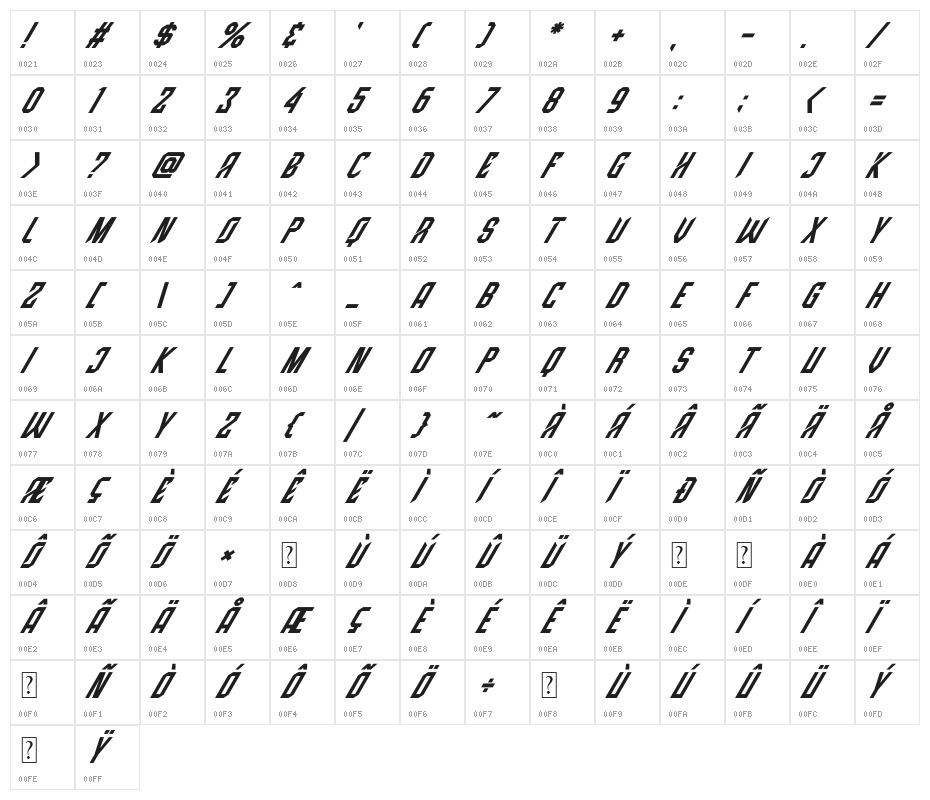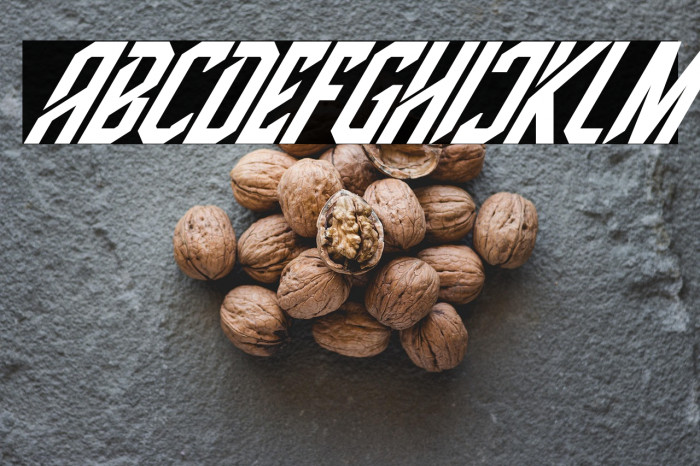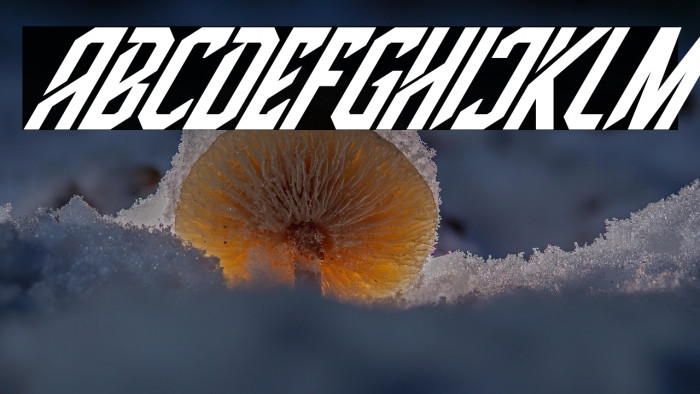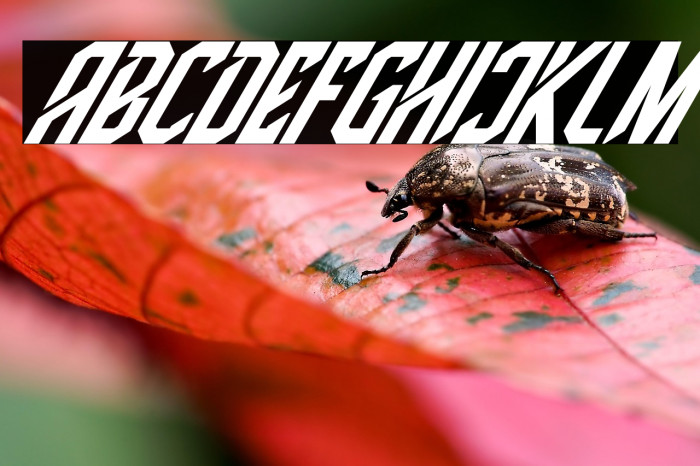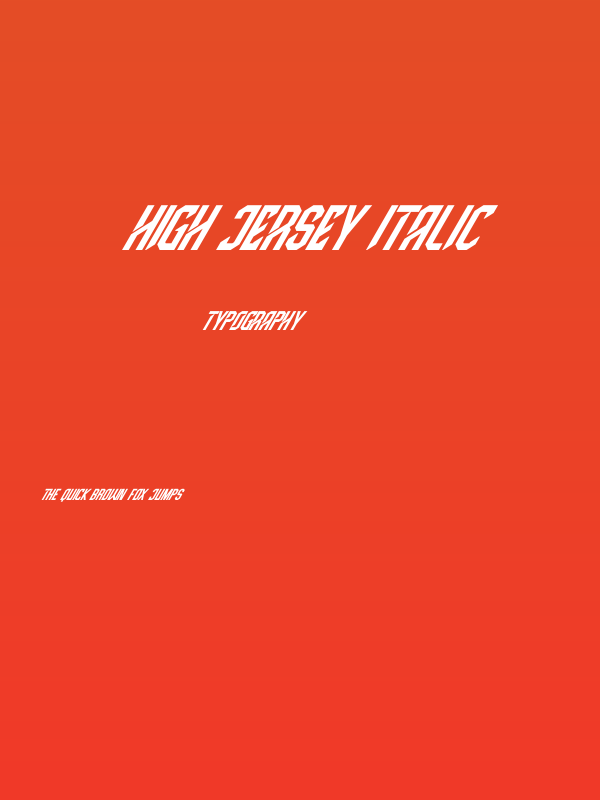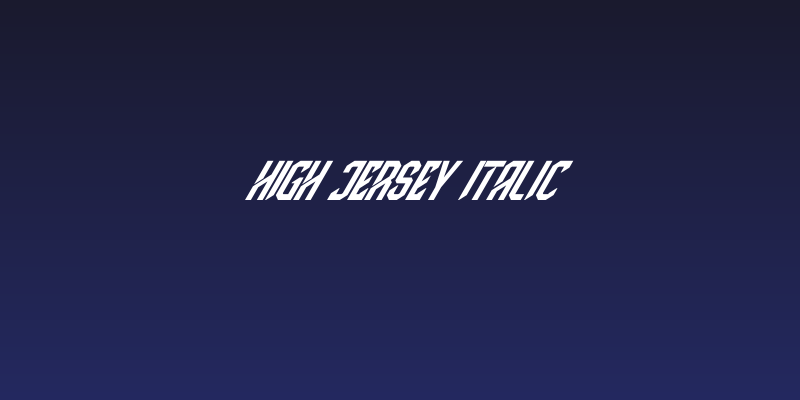
High Jersey Italic Font
High Jersey Italic Description
This font features a bold and dynamic italic style with strong geometric shapes and sharp angles. The characters are slanted, giving a sense of motion and energy, reminiscent of sports jerseys or racing graphics. The uppercase and lowercase letters maintain a consistent style, with a distinct emphasis on angular cuts and a slightly condensed form. The numbers and special characters follow the same design principles, ensuring uniformity across all glyphs. This font is ideal for projects that require a sense of speed, power, and modernity.